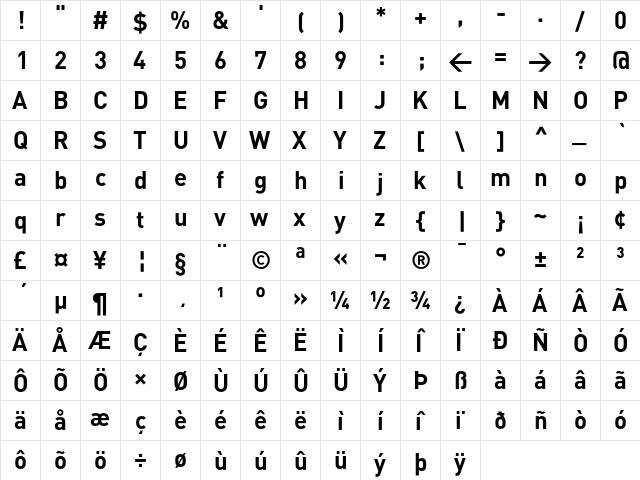
DIN Bold
Design Context for DIN Typeface
DIN takes a measured approach to typography — its balanced proportions and neutral character make it a reliable workhorse for both digital and print work. Its bold stroke weight gives it real presence on the page.